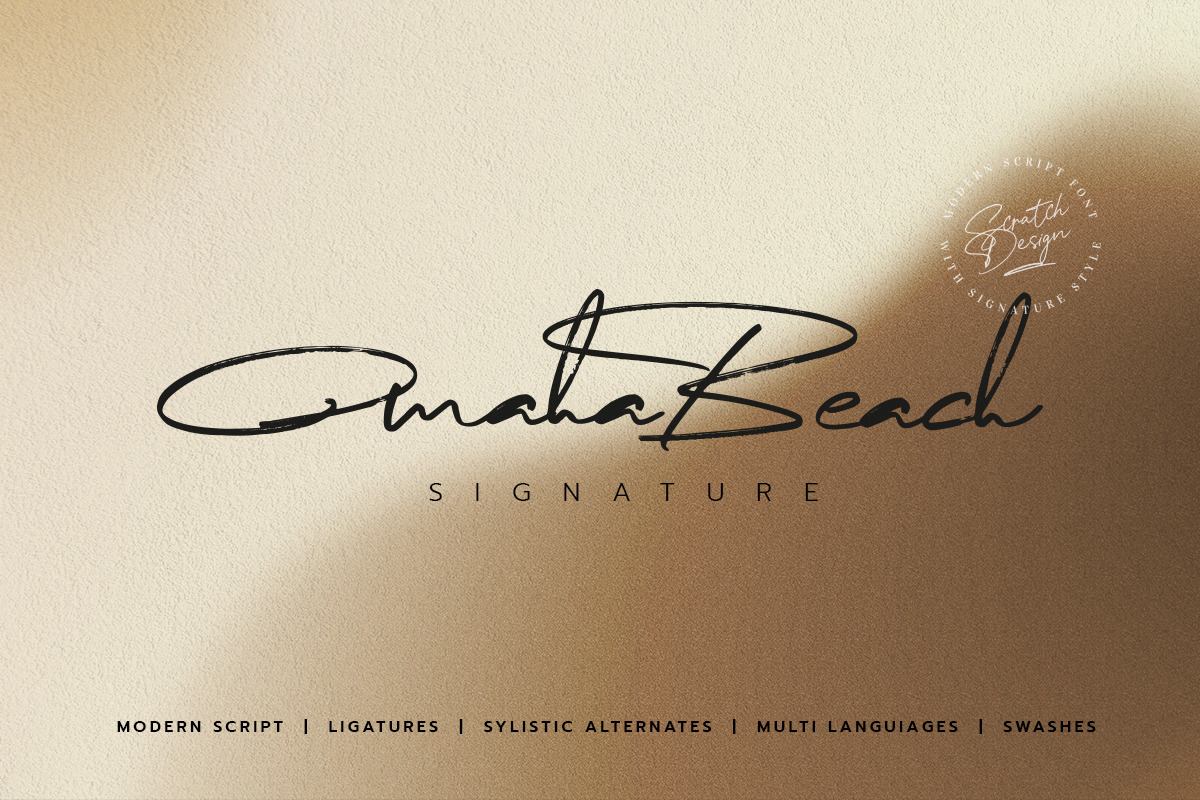
Omaha Beach Script Font Free Download is a bold, expressive script typeface inspired by vintage military aesthetics and handwritten wartime letters. With its strong brush strokes, gritty texture, and flowing curves, this font is ideal for posters, logos, apparel, retro packaging, and any project that seeks to combine emotion with impact.
Designed to evoke both nostalgia and strength, Omaha Beach adds a handcrafted touch to your work while maintaining excellent readability. It’s a perfect choice for designers aiming to create powerful visual narratives with a historic or patriotic vibe.